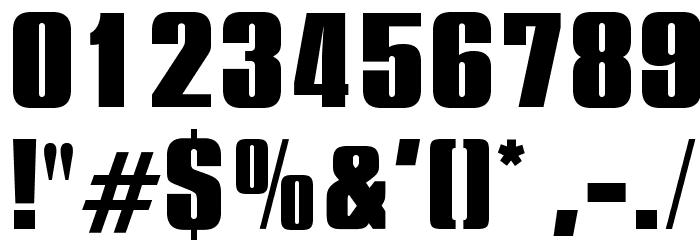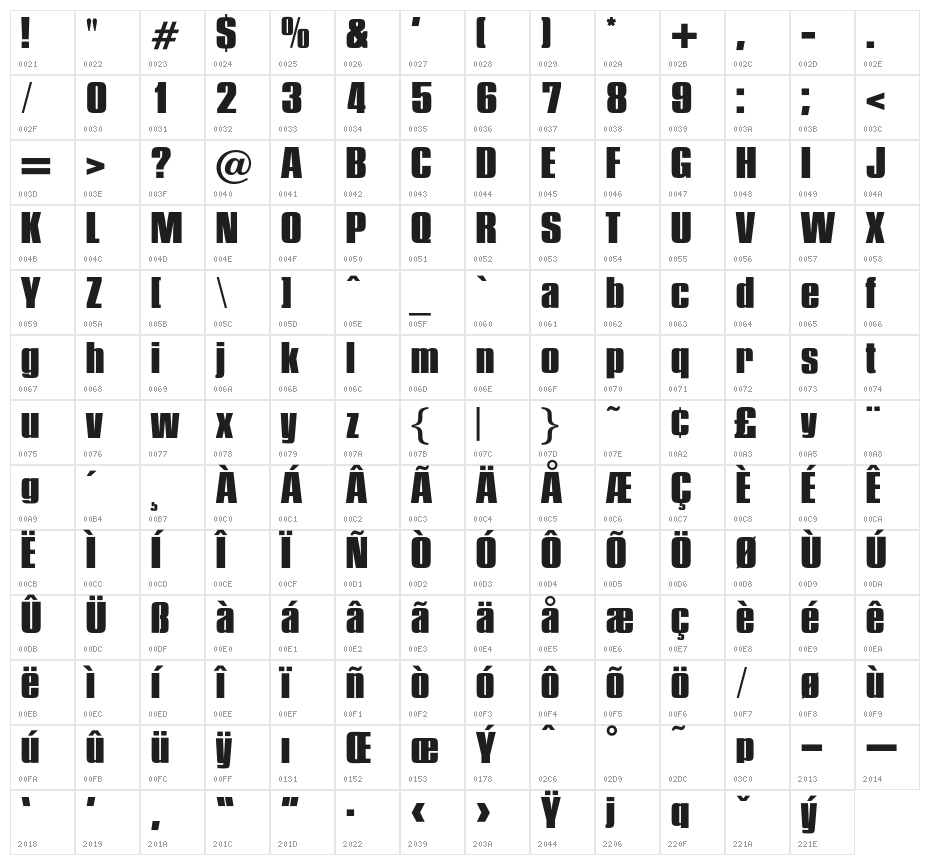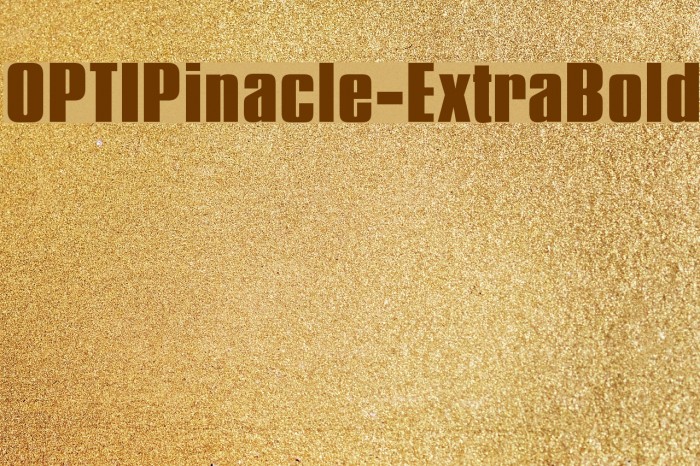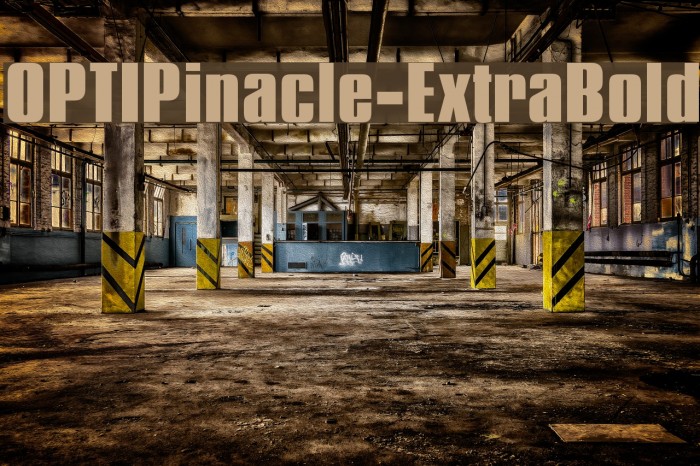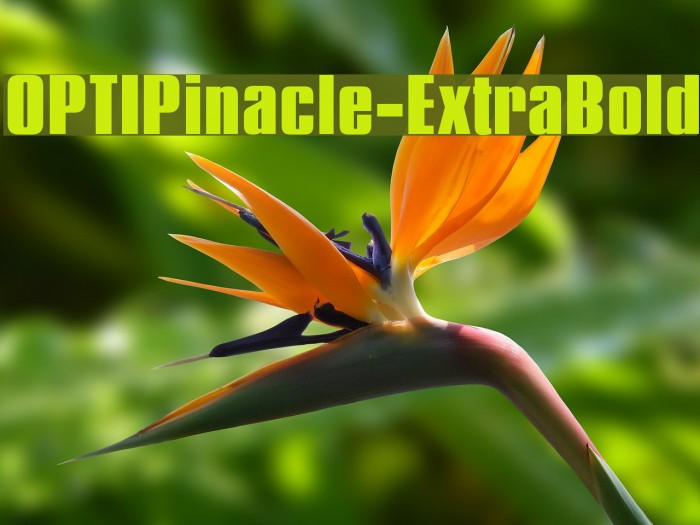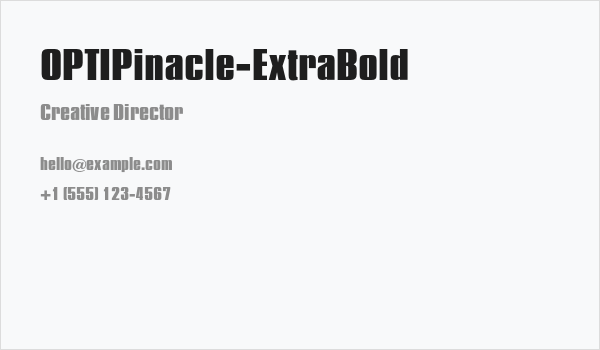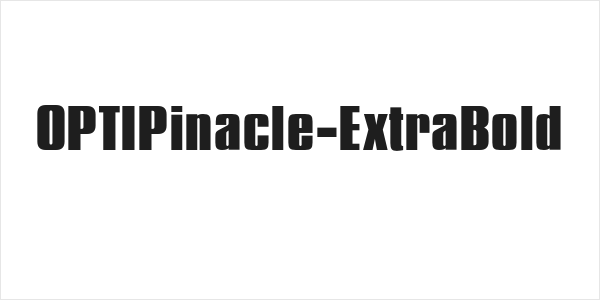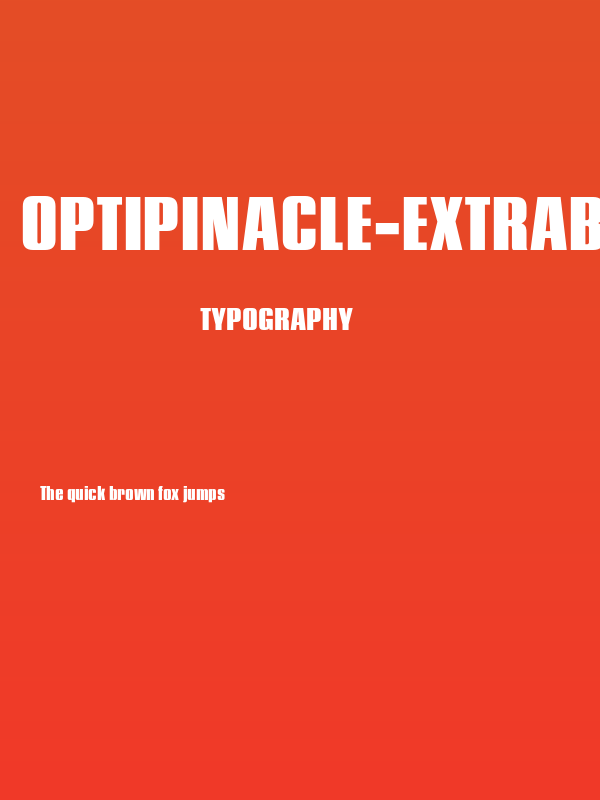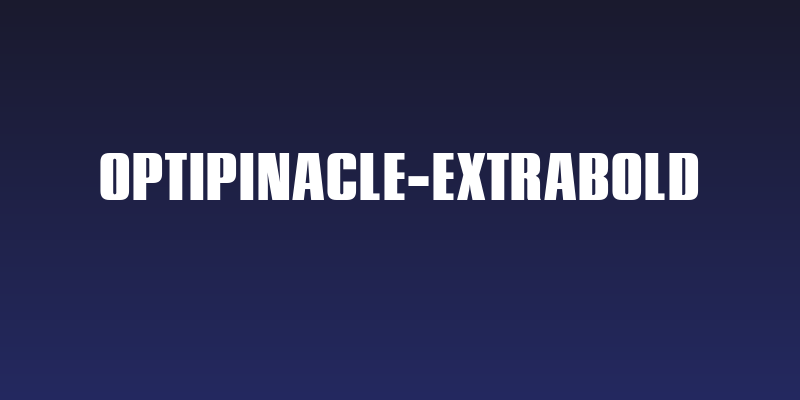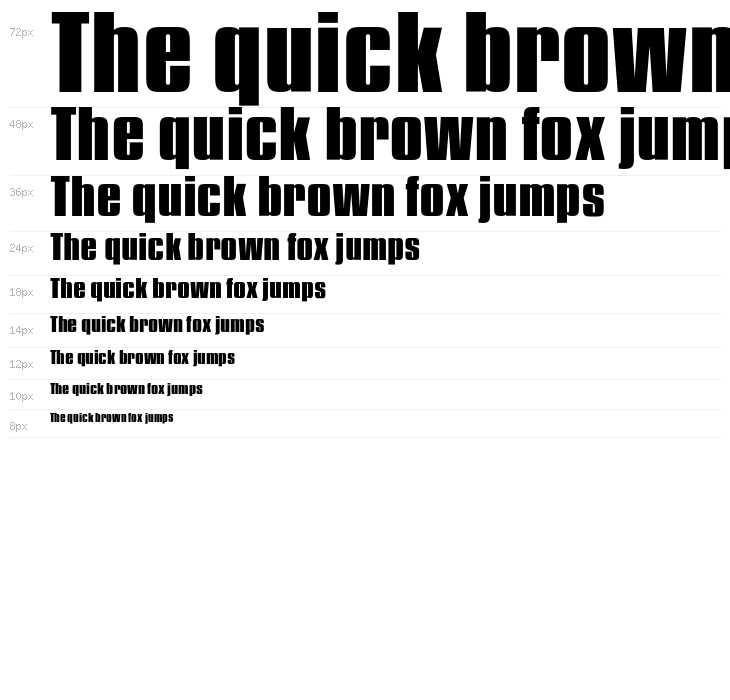
OPTIPinacle-ExtraBold Font
OPTIPinacle-ExtraBold Description
This font features a bold and commanding presence with its thick, heavy strokes and strong geometric shapes. The uppercase letters are particularly striking, with a uniform height and width that create a sense of stability and power. The lowercase letters maintain this boldness while offering a slightly more compact form, making them versatile for various design needs. Numbers are equally robust, ensuring clarity and impact in numeric displays. Special characters are designed with the same weight and attention to detail, providing a cohesive look across all glyphs. The overall style is modern and assertive, making it ideal for projects that require a strong visual statement.
| Proposed Projects | Ideal for headlines, posters, branding, and any project needing a strong visual impact. |